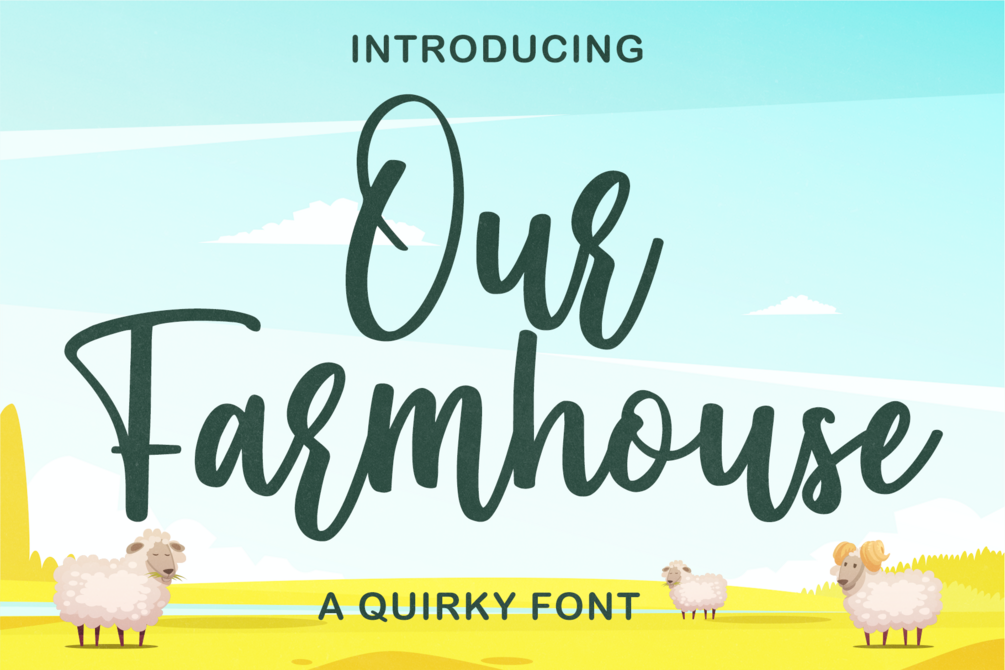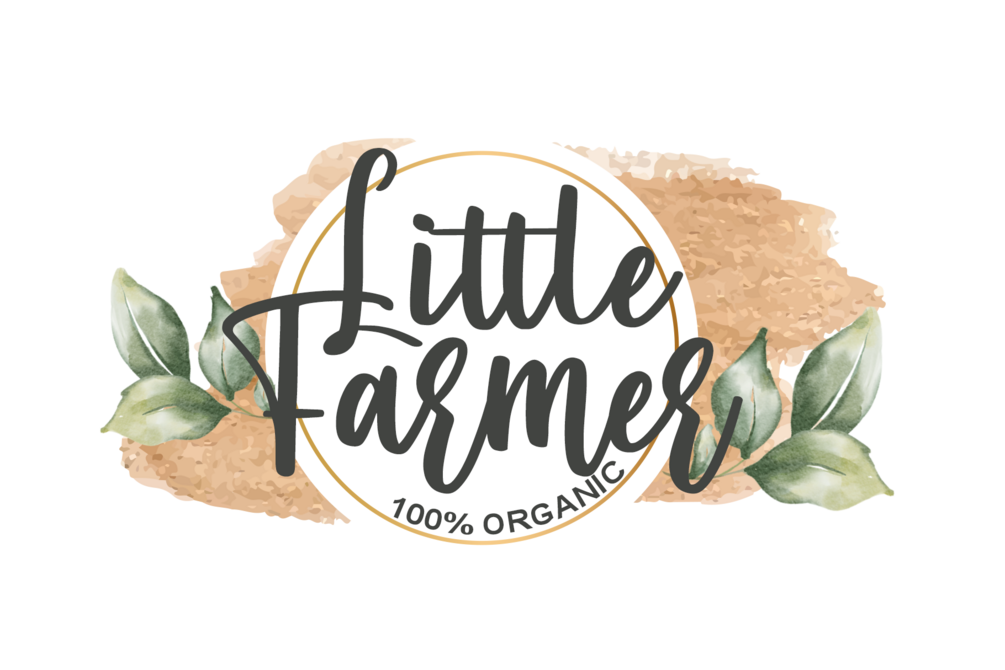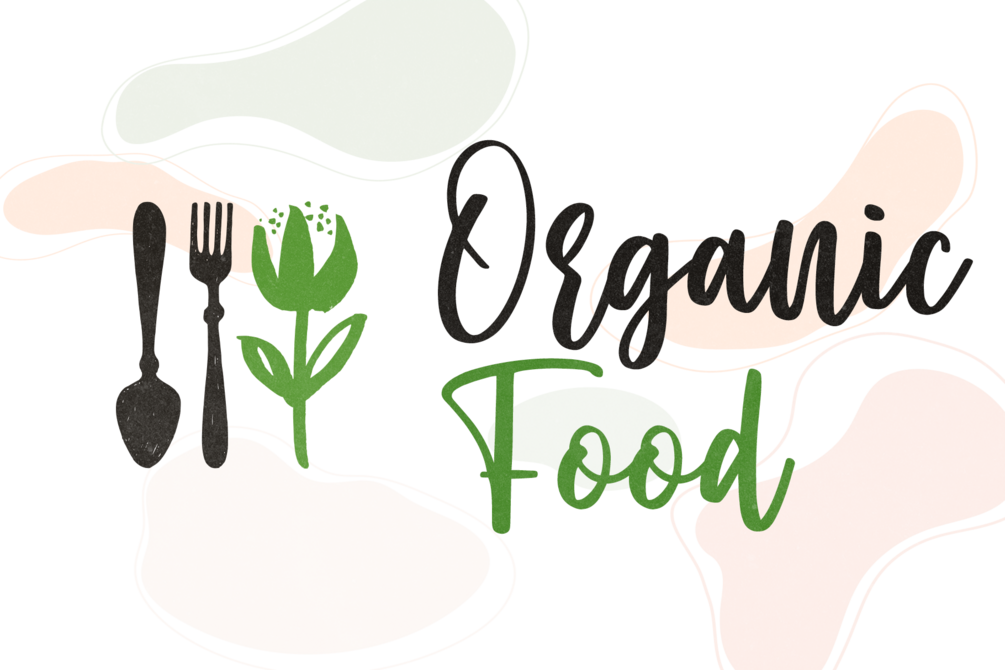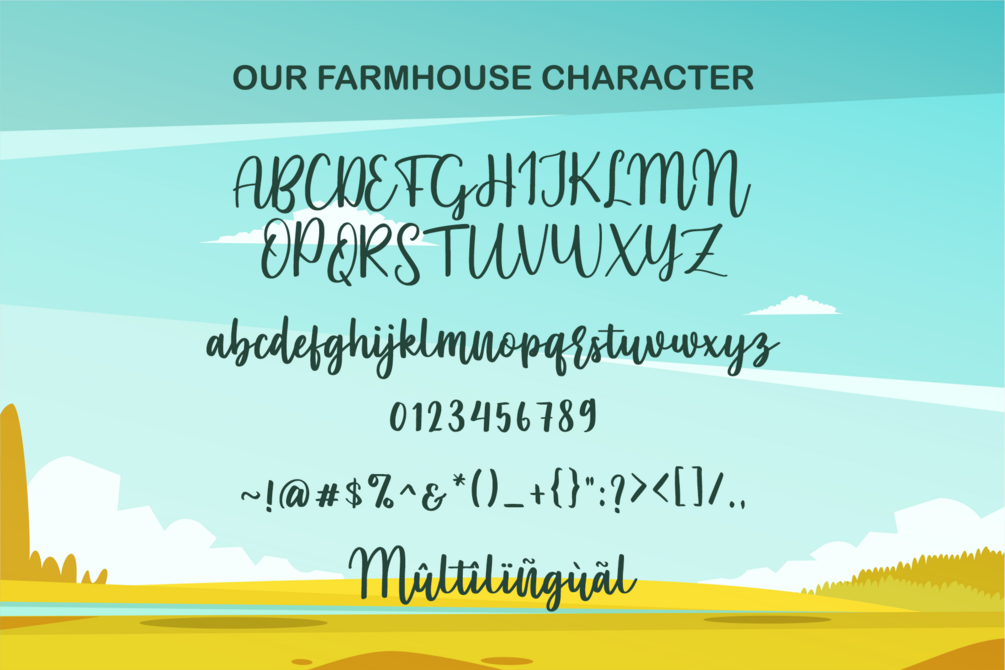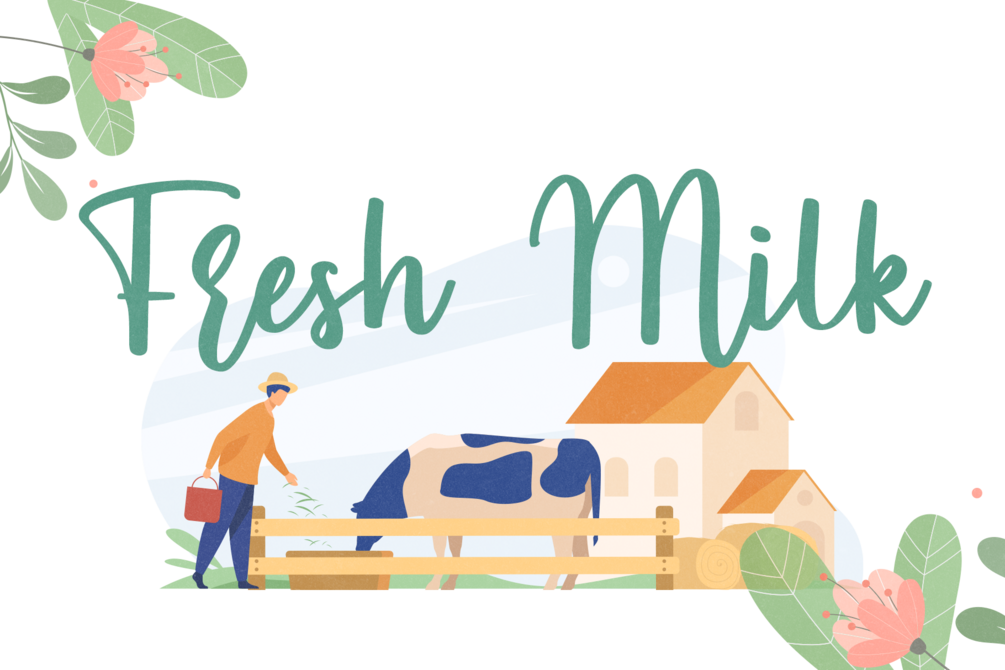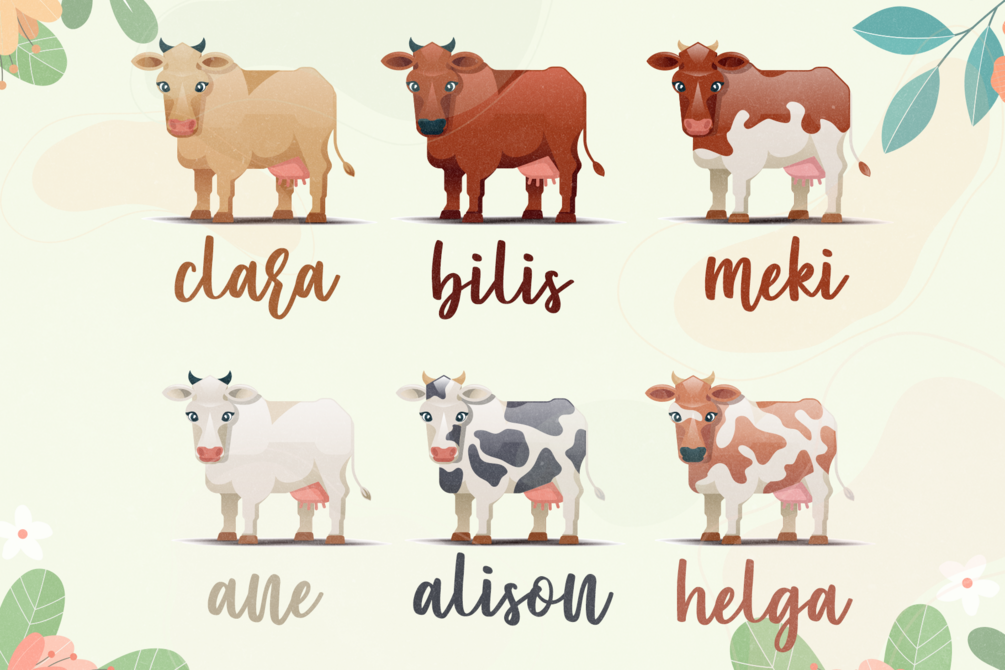
Our Farmhouse
🏑 Our Farmhouse – Bold & Beautiful Script Font
Our Farmhouse is an assertive and distinctive script font that brings character and charm to any design. Expertly crafted to make your creations stand out, this font adds a stylish, hand-lettered touch that looks stunning on a wide variety of projects.
Perfect for wedding invitations, love-themed designs, mugs, Christmas cards, posters, branding, and more, Our Farmhouse captures the warmth and creativity of handcrafted typography.
• Multilingual Support
• Ligature Characters
Bring rustic charm and bold elegance to your next project with Our Farmhouse Script Font β€” where creativity meets personality.